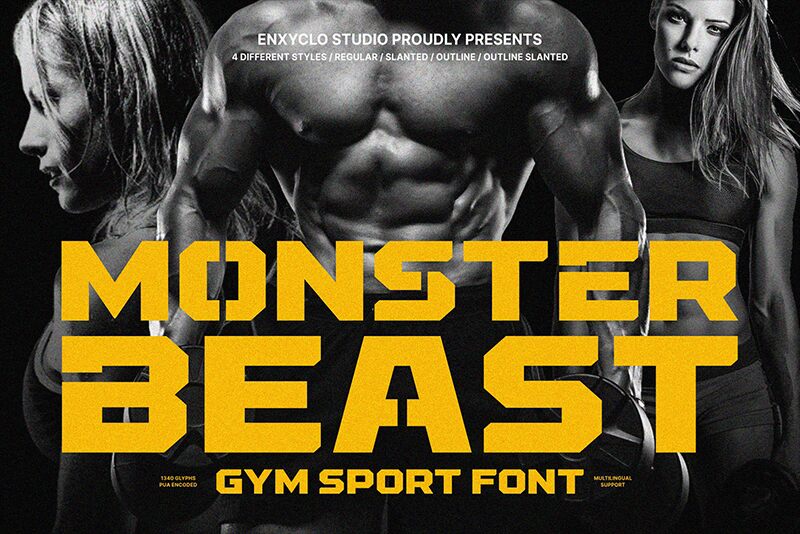
NCL Monster Beast Demo
NCL Monster Beast font by Enxyclo Studio is a bold expanded display typeface with techno elements within it. The use of cutouts and indentations adds uniqueness to its characters. Also, the font storms beautifully into your designs with its condensed proportional width, reflecting the designer’s versatile style.